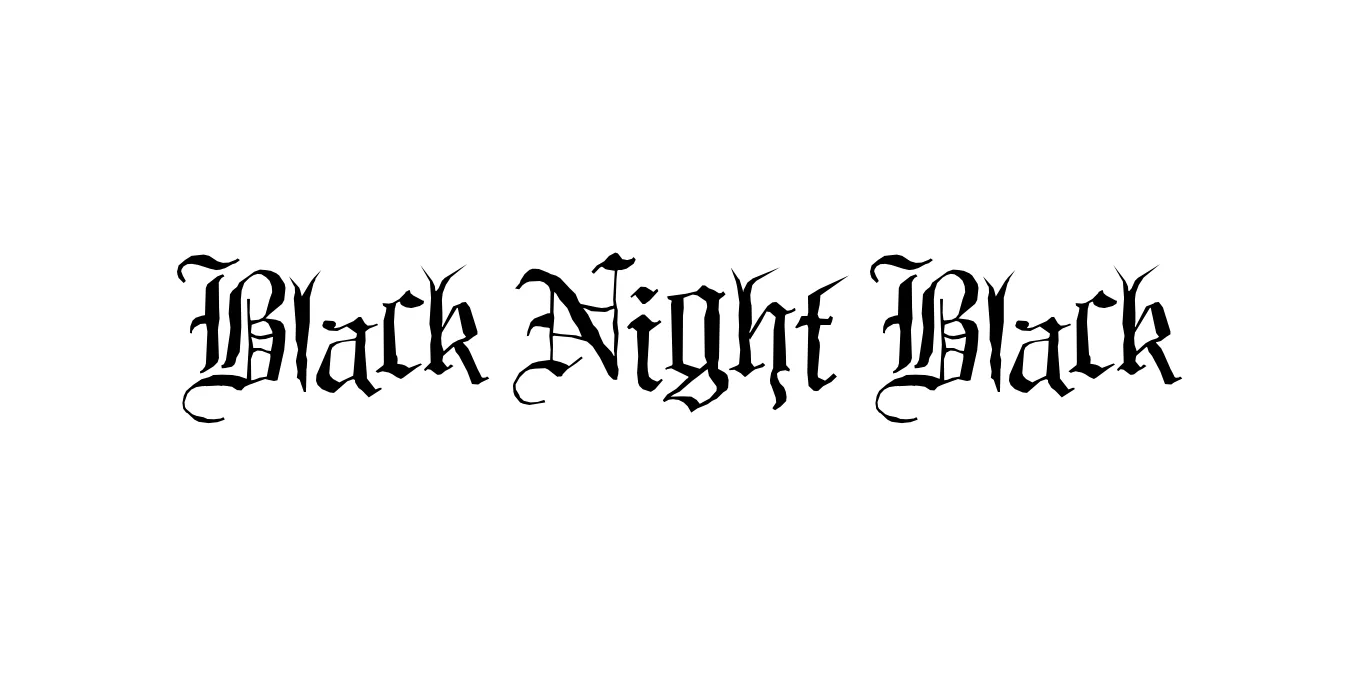
Black Night Black
| Category | Gothic / Brush Script |
Black Night Black is a powerful and evocative typeface designed by the renowned typographer Mans Greback. Characterized by its heavy, aggressive brush strokes and a distinct blackletter influence, this font exudes an atmosphere of darkness, strength, and raw energy. Its thick lines and sharp edges make it an ideal choice for projects that require a high-impact, dramatic presence that commands immediate attention.
First released as part of a series of expressive script fonts, Black Night Black has gained popularity in the music and entertainment industries. It is frequently utilized for heavy metal band logos, horror movie titles, and edgy apparel designs. The font's unique blend of gothic aesthetics and modern brushwork ensures that it remains a versatile tool for designers looking to infuse their work with a sense of mystery and power.
Black Night Black Best Uses
Ideal for creating striking logos for metal bands or edgy lifestyle brands.
Perfect for horror movie titles, action-themed posters, and event flyers.
Highly effective for t-shirt graphics and streetwear merchandise.
Commanding presence for website headers and social media banners.